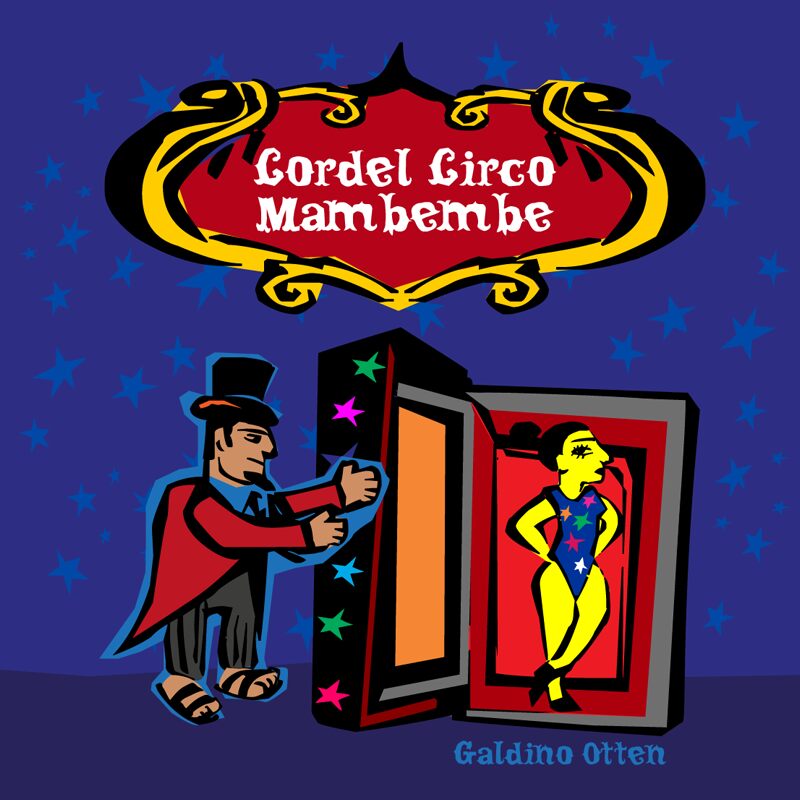
Cordel Circo Mambembe, crafted by Galdino Otten Fonts, is a captivating display font that exudes a sense of whimsy and energy. Its bold, expressive strokes evoke the vibrant atmosphere of a traveling circus, capturing the spirit of adventure and entertainment. The font's unique character shapes and playful ligatures add a touch of playfulness, making it an engaging choice for attention-grabbing headlines, festival posters, or branding projects that aim to convey a spirited, carnival-esque vibe.
This versatile font lends itself well to a variety of design applications, from eye-catching packaging and event invitations to dynamic social media graphics and striking editorial layouts. Its bold, attention-grabbing presence makes it an excellent choice for projects that seek to captivate and inspire, whether it's a lively festival announcement, a whimsical product line, or a captivating brand identity.